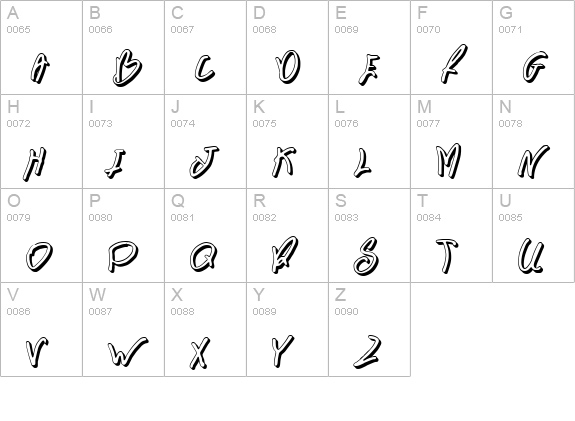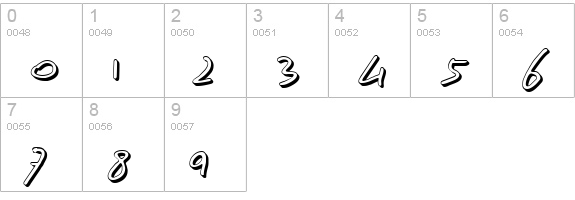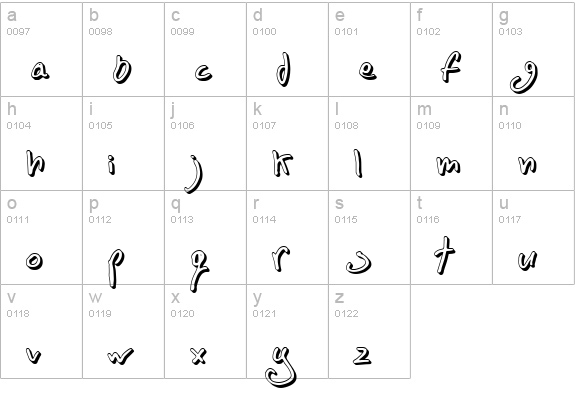
BN FontBoy 3D Font Details
Introducing BN FontBoy 3D font, a modern and stylish typeface that will elevate your designs to a whole new level. This eye-catching font features intricate 3D effects that add depth and dimension, making your text pop off the page. Perfect for headlines, logos, posters, and more, BN FontBoy is sure to make a bold statement. What's even better is that this unique font is available for free download at FontsMarket.com. Yes, you read that right - you can get your hands on BN FontBoy for absolutely free! Don't miss out on this fantastic opportunity to enhance your design projects with this striking and versatile font. Download BN FontBoy 3D font today and let your creativity shine!